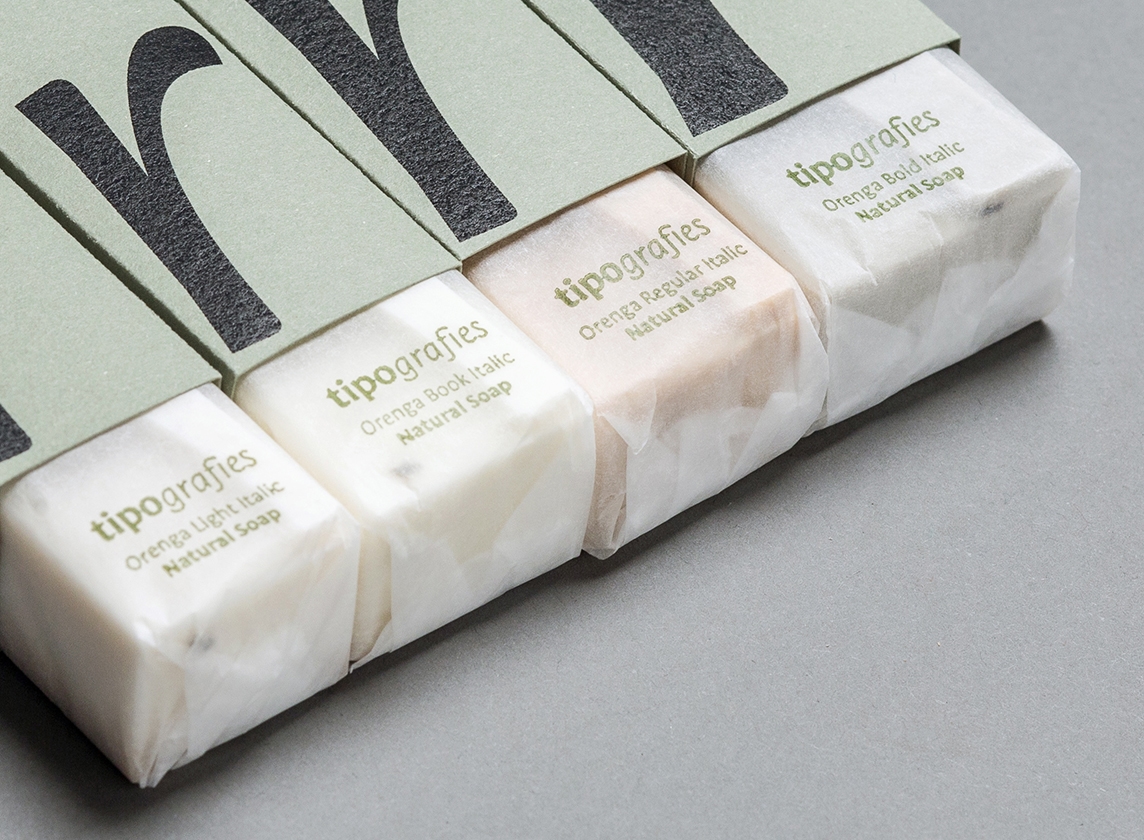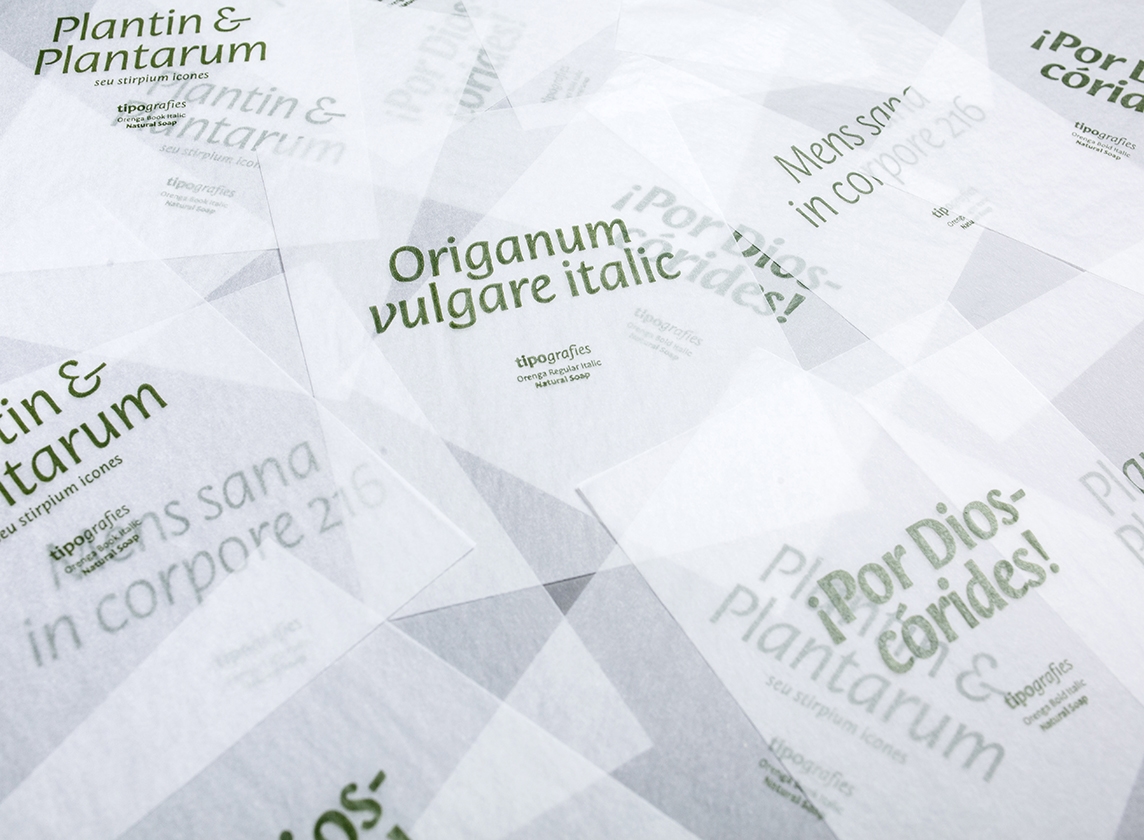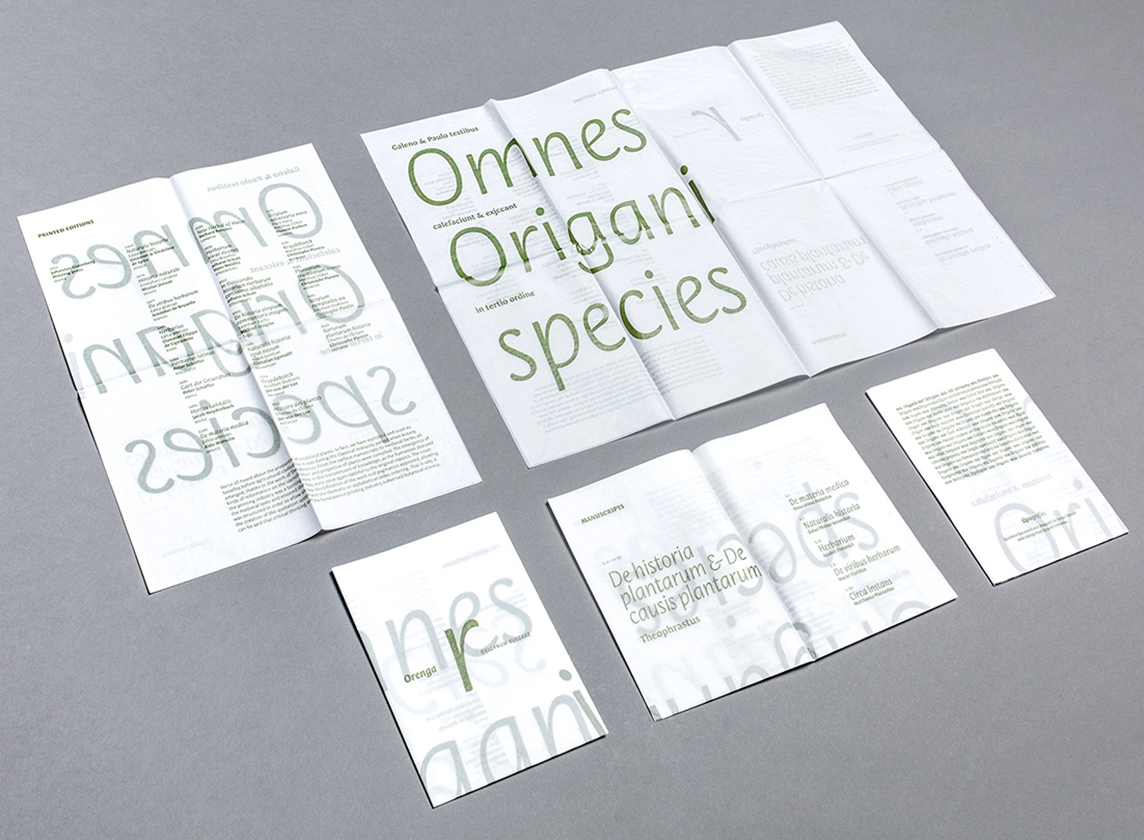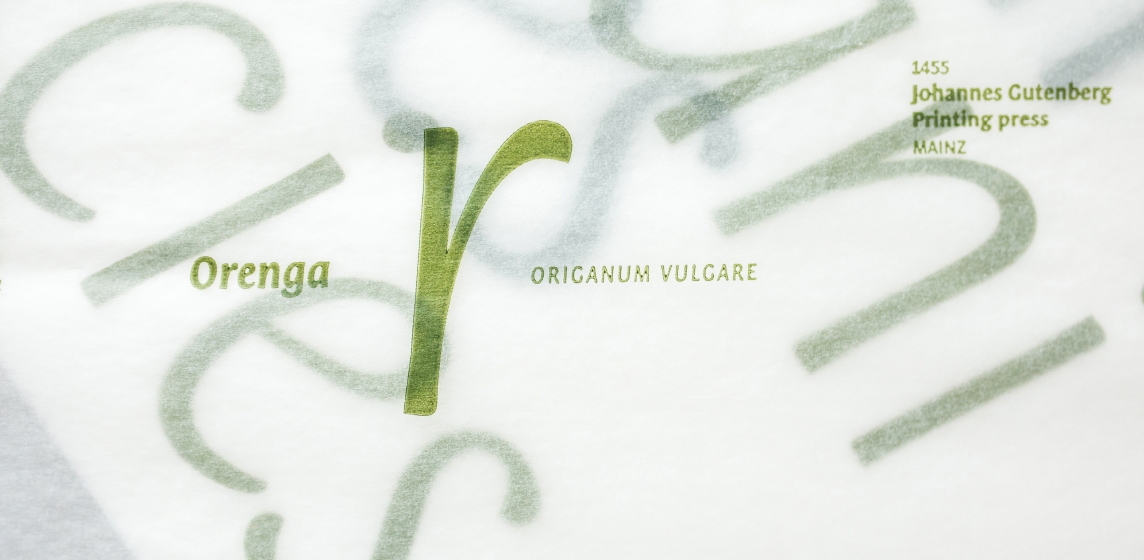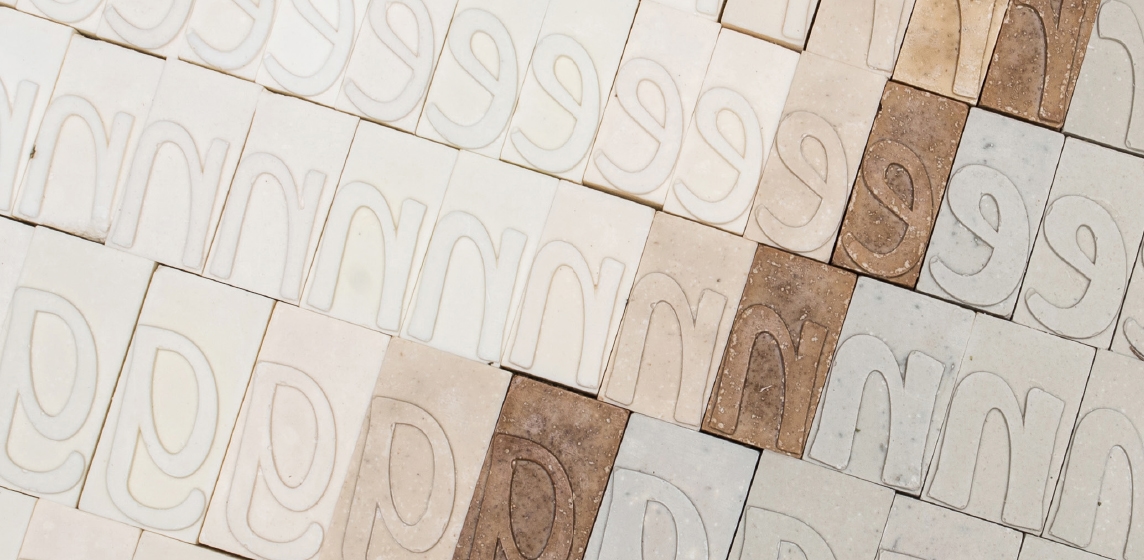
Orenga is a calligraphic sans that matches the Mediterranean flavour with Dutch influences. Its narrow letterforms makes of Orenga a space–saving design. Flared stems and subtly bulging stroke endings give it a refined appearance in display sizes. Its open shapes and large x–height guarantee perfect legibility in small sizes. An organic, hand–made feel makes Orenga ideal for subjects such as environment, children, and cooking, yet it is serious enough to be used in packaging or branding.